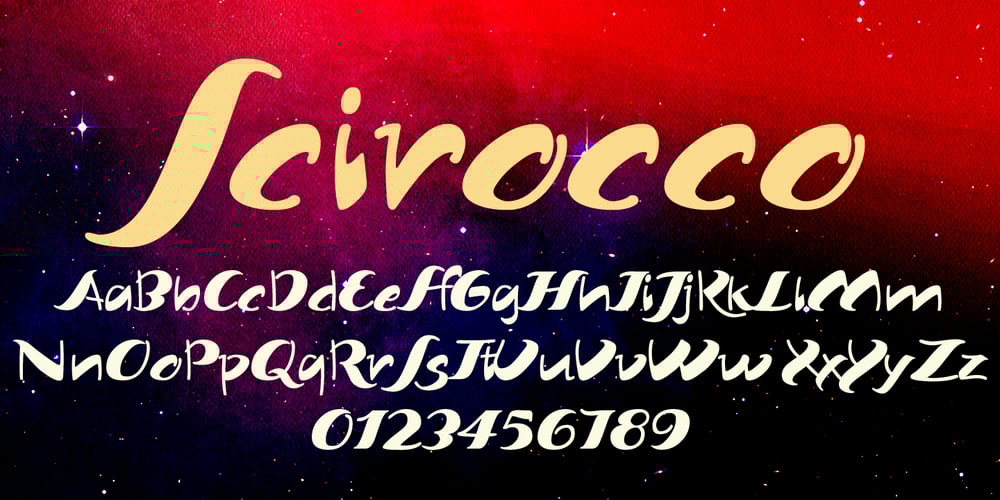
Scirocco
Scirocco font
Scirocco Font Family was designed by Gert Wiescher and published by Wiescher Design. Scirocco contains 1 styles and family package options. Scirocco is a hot and humid wind that blows from the Sahara over to France and Italy. It crosses the mediterranean sea and carries lots of fine desert dust with it. Once it hits the coast of Provençe one can feel it grinding ones teeth and see it as fine dust covering every car. It makes people go nuts! Scirocco, the typeface has that same hot moving character and the finer hairlines giving it a kind of Arabic touch. If you use it too much, it will make you go nuts. Your pretty crazy Gert Wiescher